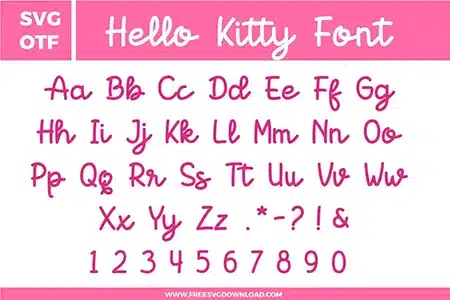
Hello Kitty Font Free SVG File
Hello Kitty Font free svg files set features a complete uppercase and lowercase alphabet Aa-Zz, numbers 0-9, and punctuation symbols. The design is rendered in a vibrant pink color with a soft, rounded, and cute handwritten script style. The characters have a whimsical and charming aesthetic, making this high-quality digital download perfect for kid-friendly crafts and kawaii-themed projects.
• Hello Kitty Font SVG: Full alphabet and number font preview in a rounded handwritten style with bright pink lettering, soft curves, playful loops, and simple punctuation marks arranged in neat rows across a clean white background.